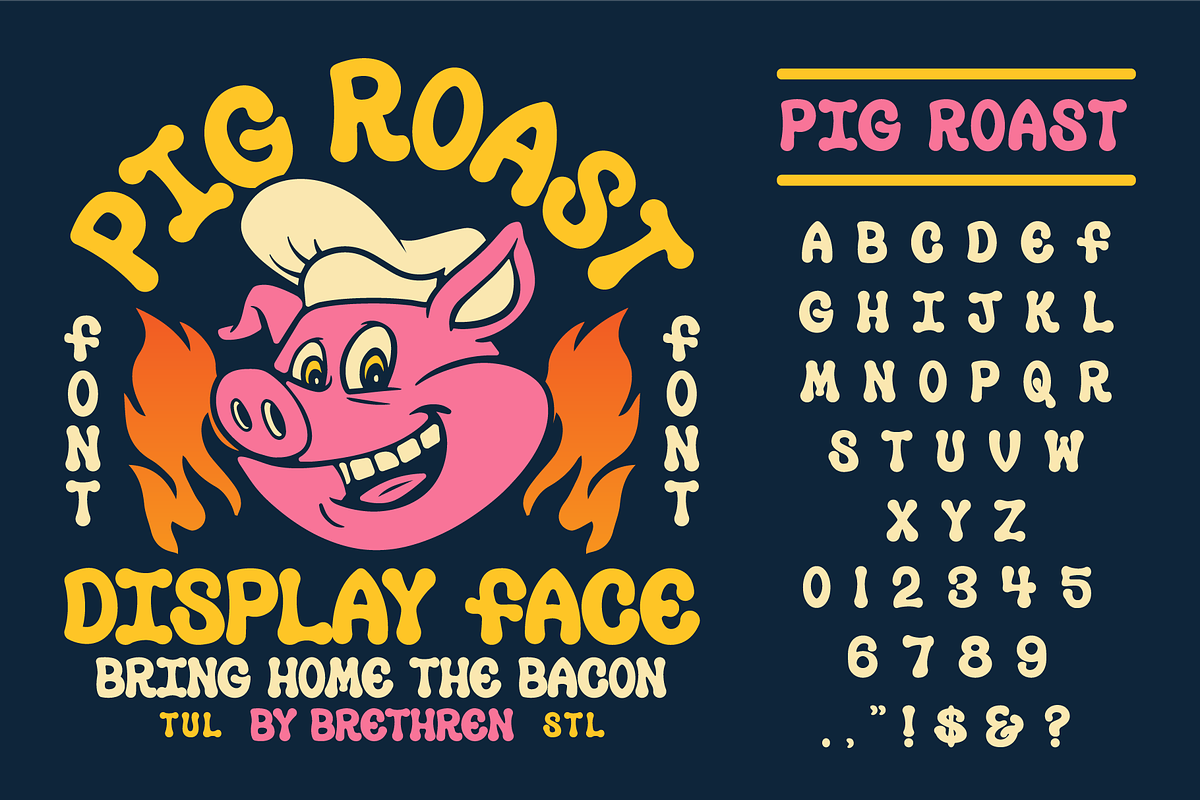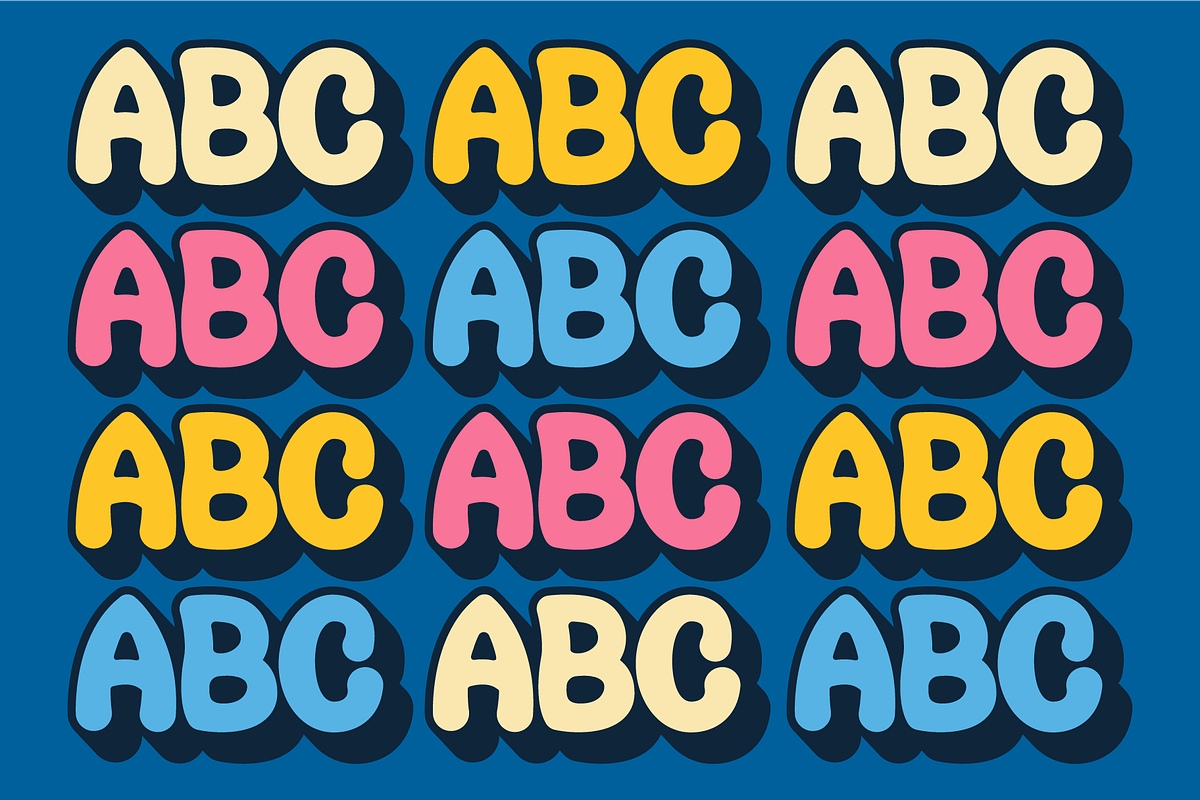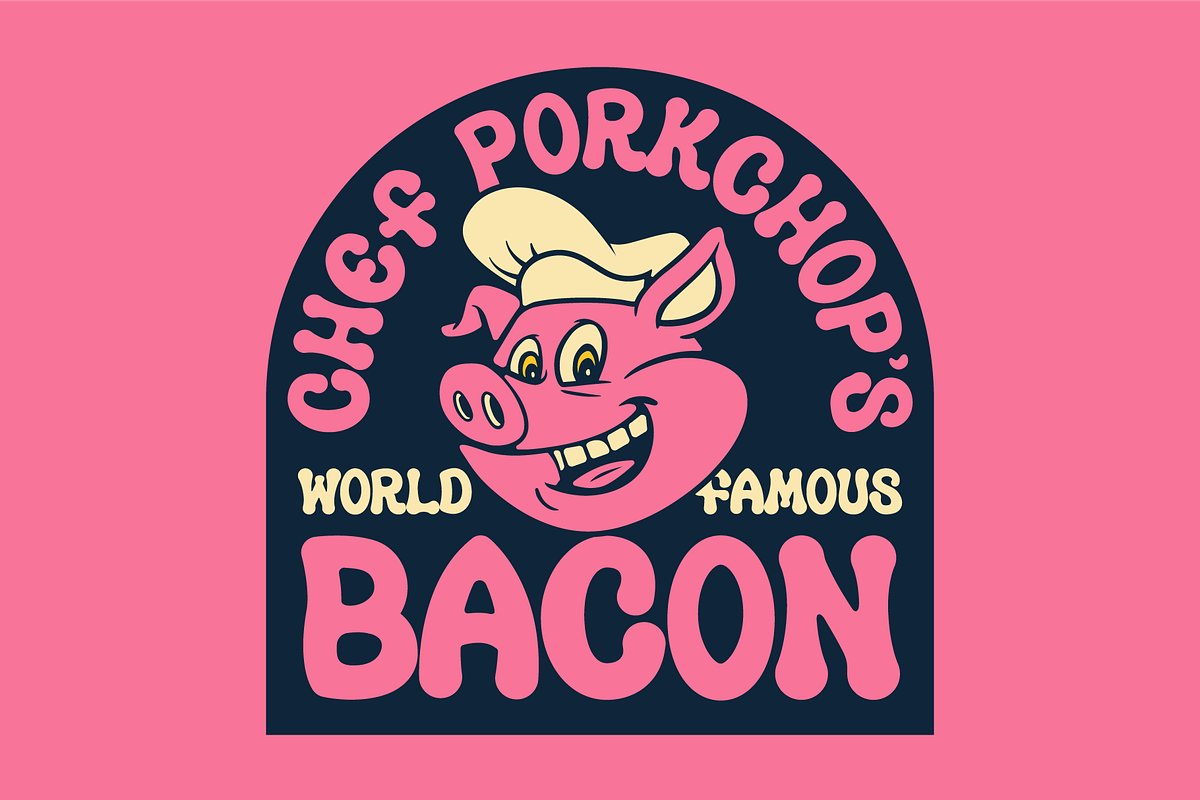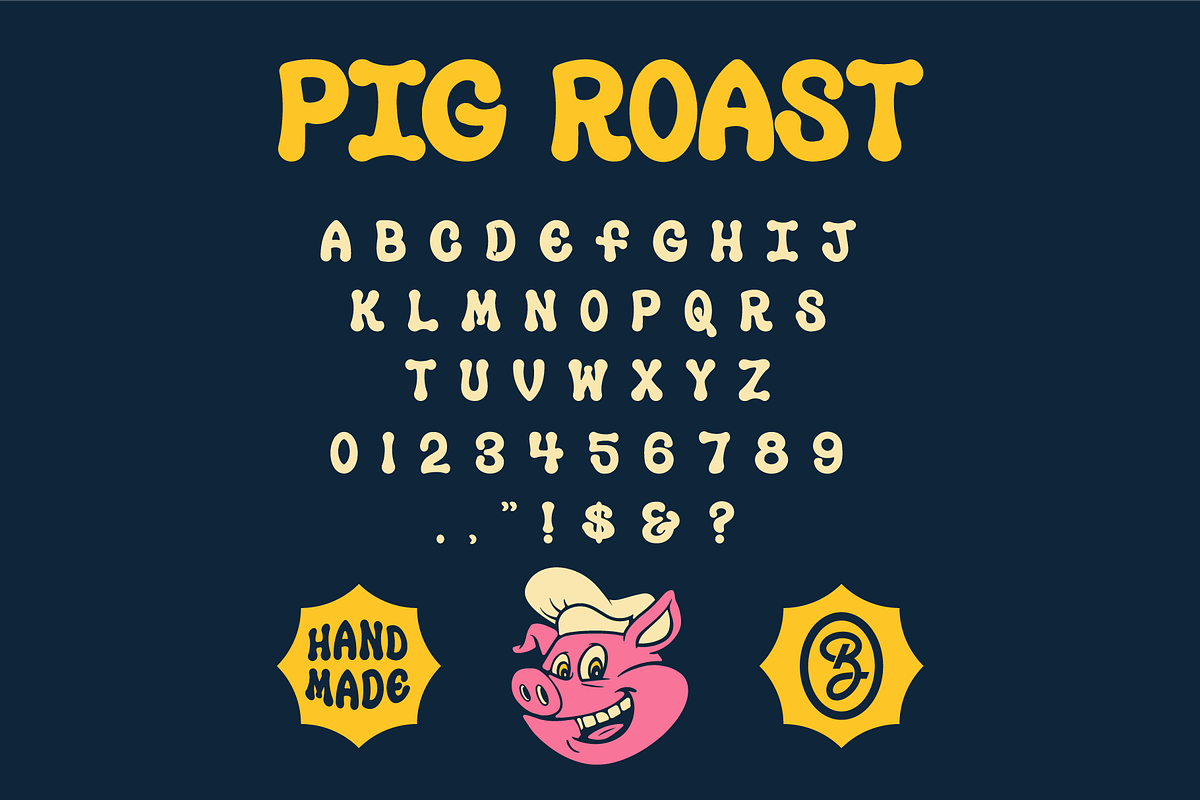
Pig Roast Display Font
Bring home the bacon with this new display font. This rounded lil sausage display font has a clean playful vibe. Perfect for your next merchandise or package design project